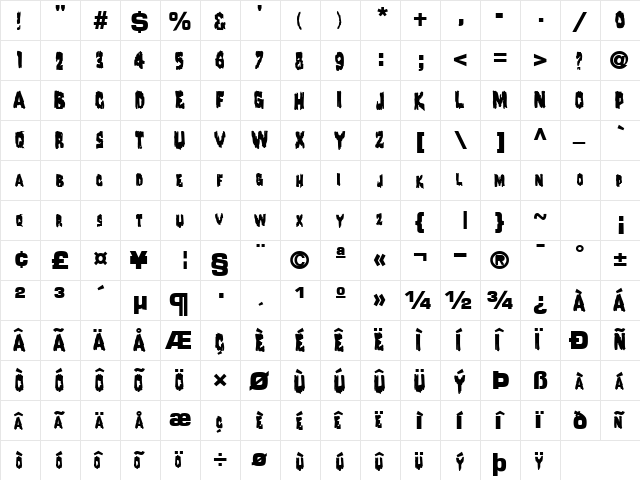
DroopingPaintText56 Bold Font Preview
DroopingPaintText56 Bold
DroopingPaintText56 Bold Font Details
Design Context for DroopingPaintText56 Typeface
DroopingPaintText56 is a composed and adaptable typeface that performs quietly and consistently across a wide range of design contexts. Its bold stroke weight gives it real presence on the page.